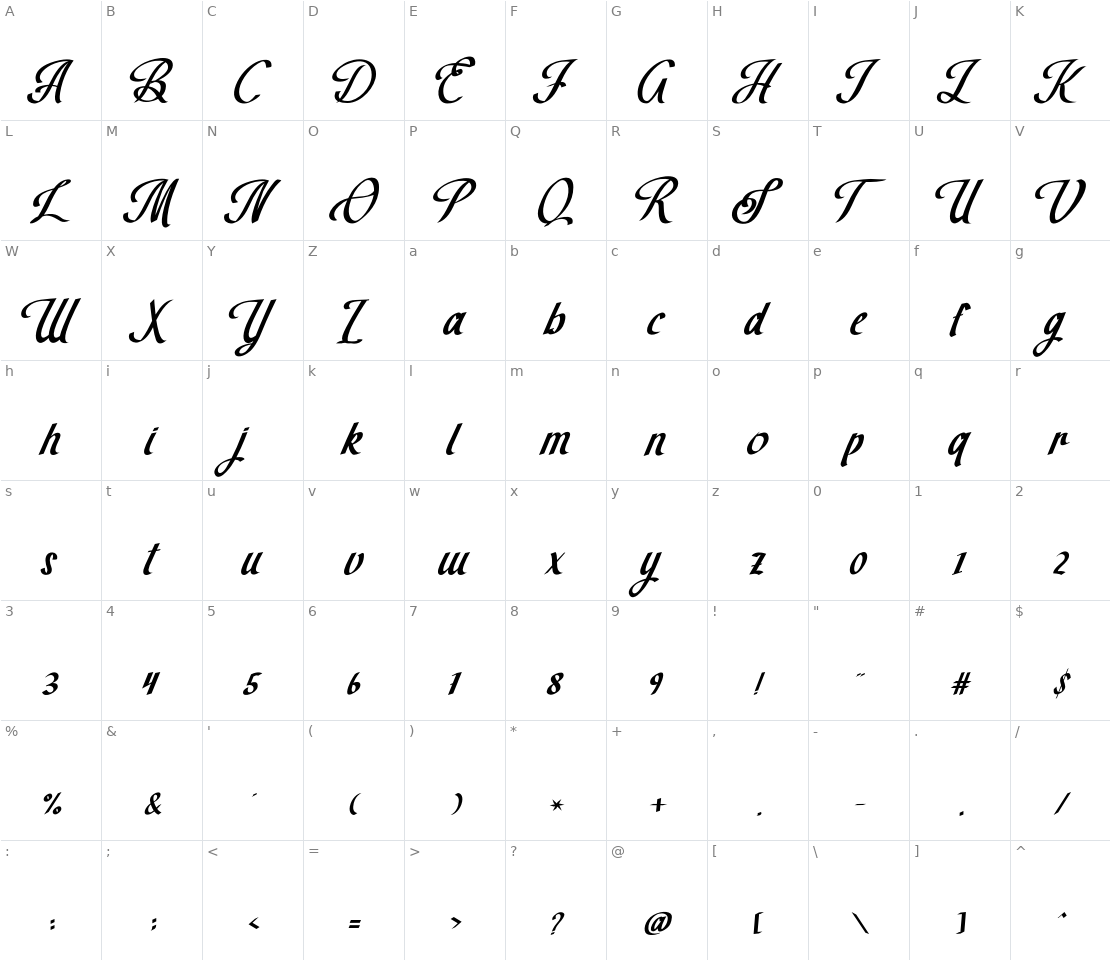
The Brown Wall
The Brown Wall is a bold calligraphic script from Ardyana Types with sweeping, flowing strokes that carry genuine pen-drawn energy. The letterforms are thick and confident, leaning into an elegant italic rhythm that feels more like formal hand lettering than a typical script font. Best at headline sizes for wedding invitations, luxury packaging, and editorial work where you want something decorative but grounded in real calligraphic tradition.